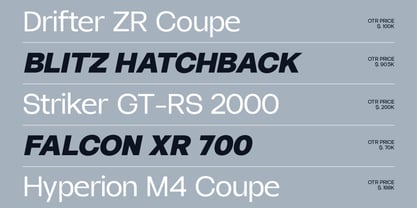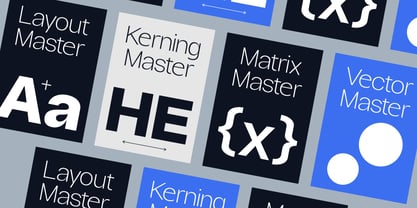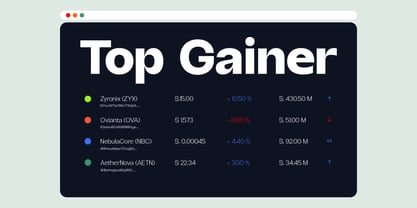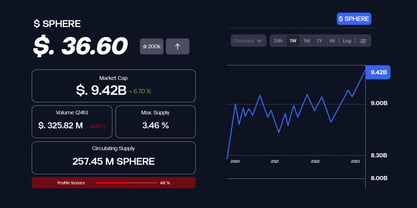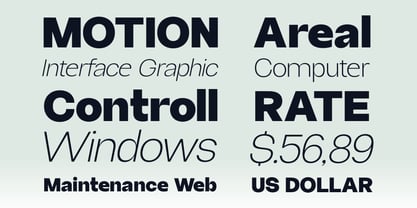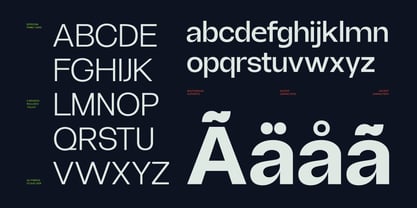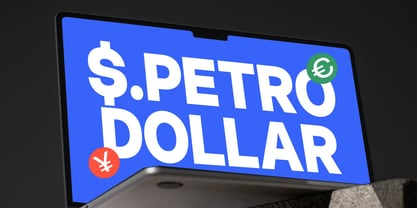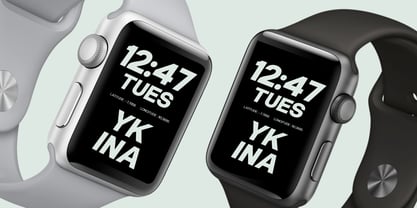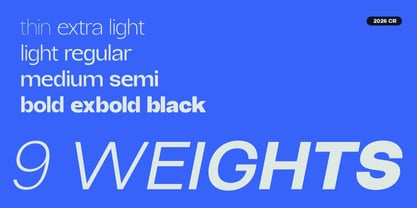
Borsche
by Glyphminds Studios
The Borsche Font Family was designed by Baliya Ibnu Bi Malkan and published by Glyphminds Studios. Borsche contains 18 styles and family package options. More about this family
In a world of cluttered design, Borsche offers the ultimate clarity. Designed by Glyphminds Studios, this expansive 18-family sans-serif collection is engineered for versatility. Whether you are crafting a high-tech UI, a luxury fashion lookbook, or a bold corporate identity, Borsche adapts seamlessly. Borsche is a modern, minimalist sans serif font designed for clean, professional, and high-impact visual communication. With its smooth curves, balanced proportions, and contemporary geometric feel, Borsche delivers a premium look perfect for branding, logos, websites, UI/UX design, editorial layouts, and more. This font family includes 18 styles with italic versions, giving you maximum flexibility to create elegant typography systems—from bold headlines to refined body text. Whether you're building a modern brand identity or designing a sleek interface, Borsche helps your work stand out with clarity and sophistication.